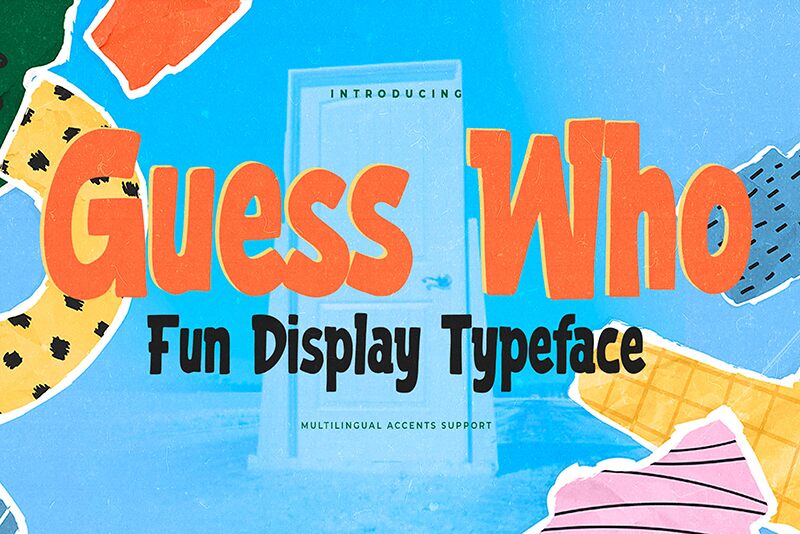
Dive into the whimsical world of Guess Who, a playful display font crafted with care by Gassstype that brings a lively cartoon aesthetic to any creative canvas. The bold weight of this typeface commands attention, while its modern style and dramatic movement imbue your design with an air of casual speed. Perfect for an array of applications - from tantalizing food labels to eye-catching posters - Guess Who elevates projects with its authentic charm and fun demeanor.
Designed for versatility, it seamlessly adapts to branding exercises, packaging adventures, heartfelt greeting cards, engaging websites, and beyond. Photographers and scrapbookers will delight in its ability to overlay images with a textured touch that feels both unique and natural. Not just visually engaging, Guess Who is technically adept too; it supports OpenType features such as ligatures and alternate glyphs, allowing designers to fine-tune their creations for maximum impact. Welcome this font into your toolkit and watch as it transforms the mundane into the extraordinary!